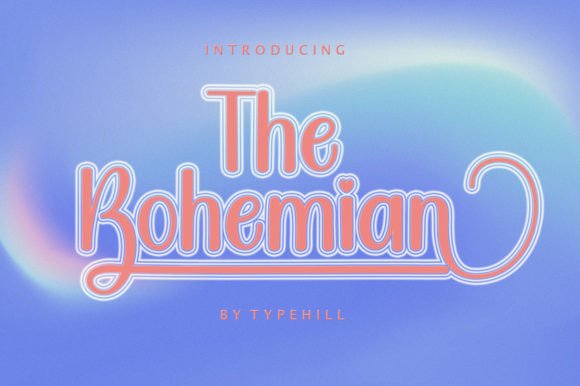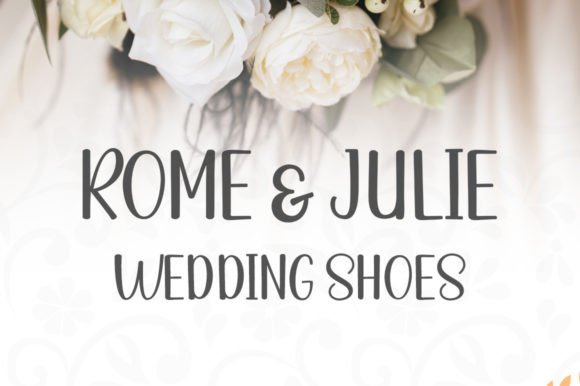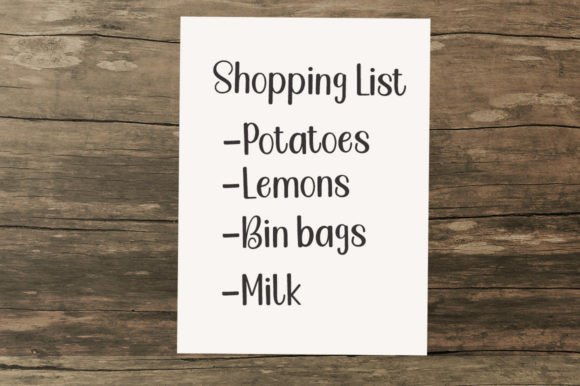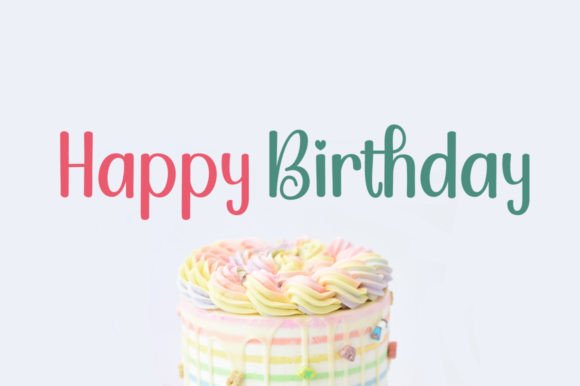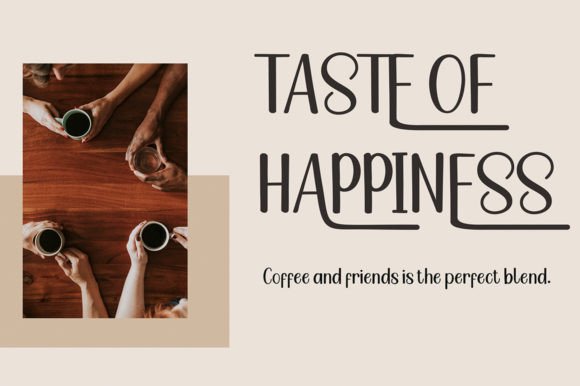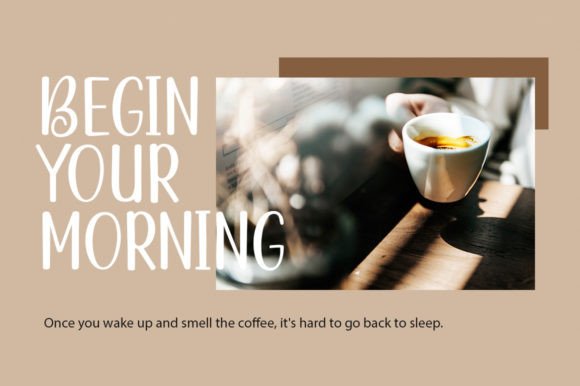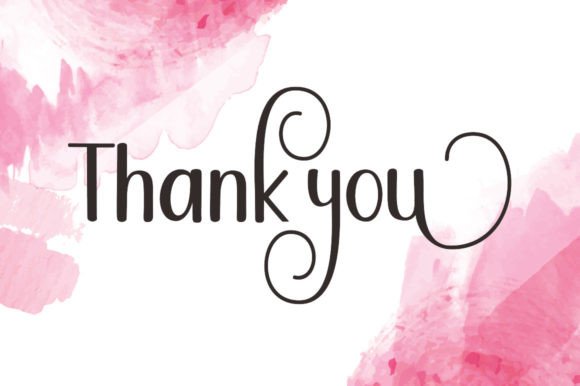
The Bohemian
About The Bohemian
The Bohemian is a beautiful handwritten font. The Bohemian looks lovely on wedding invitations, thank you cards, quotes, greeting cards, logos, business cards, and more. Perfect for use in ink or watercolor.